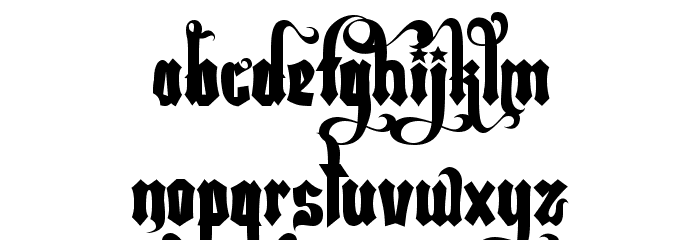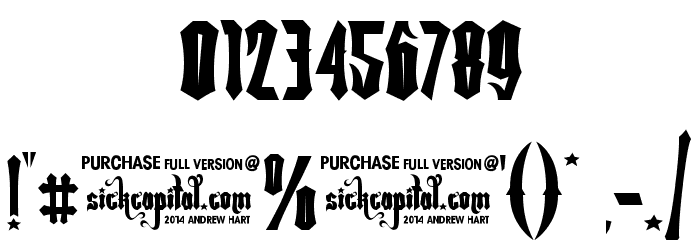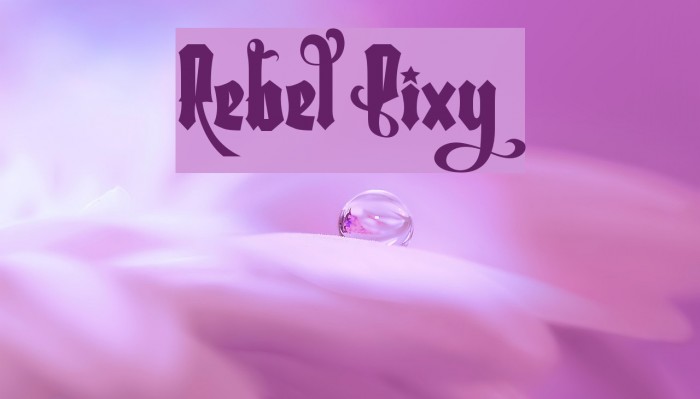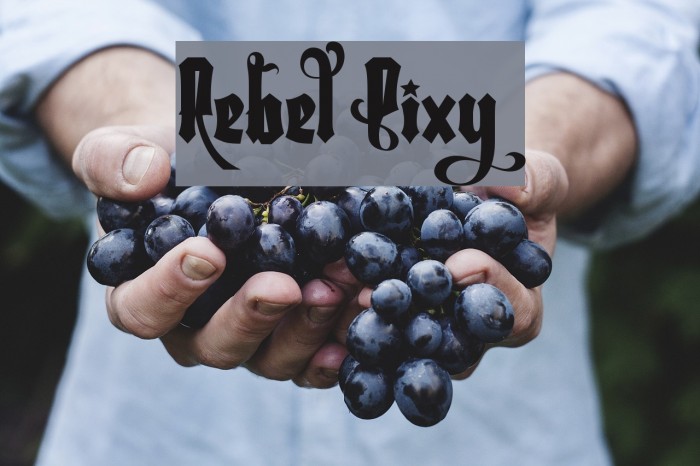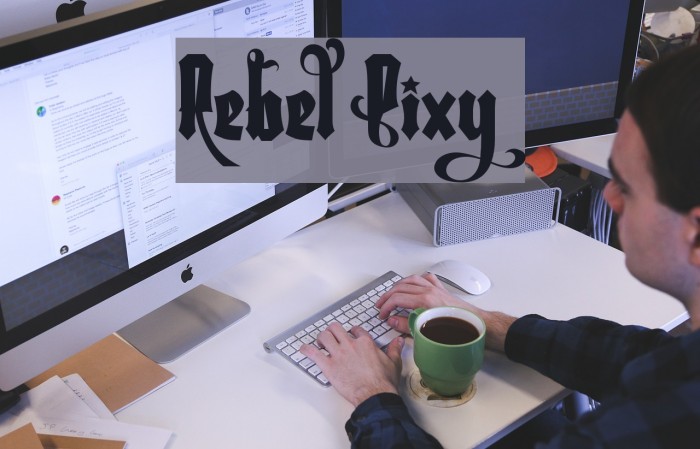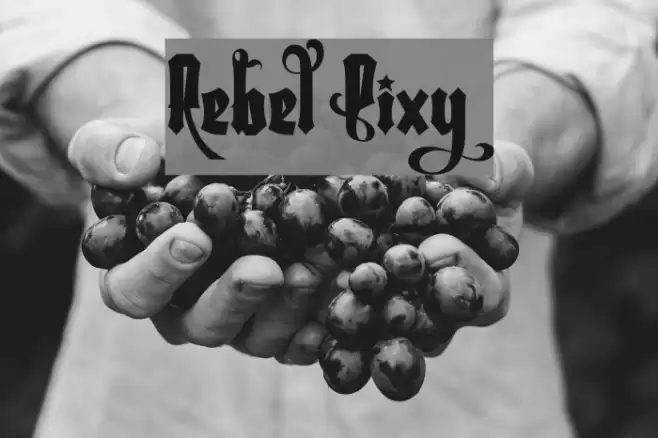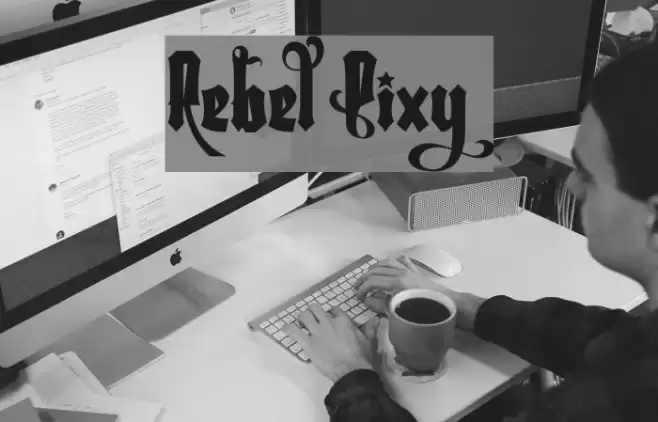
Rebel Pixy Font
This font features a bold and dramatic style with intricate details and flourishes that give it a gothic and rebellious feel. The uppercase letters are particularly striking, with sharp edges and decorative swirls that add a sense of movement and flair. The lowercase letters maintain the same boldness but with slightly less ornamentation, making them more readable while still retaining the overall aesthetic. The numbers are consistent with the letterforms, ensuring a cohesive look across all characters. Special characters are also included, matching the elaborate style of the alphabet. This font is perfect for projects that require a strong, eye-catching typeface with a touch of elegance and mystery.
A bold, gothic-style font with intricate details and dramatic flair.
- Proposed Projects: Ideal for tattoo designs, album covers, posters, and branding that requires a bold statement.
- Overall Style: Gothic, Decorative